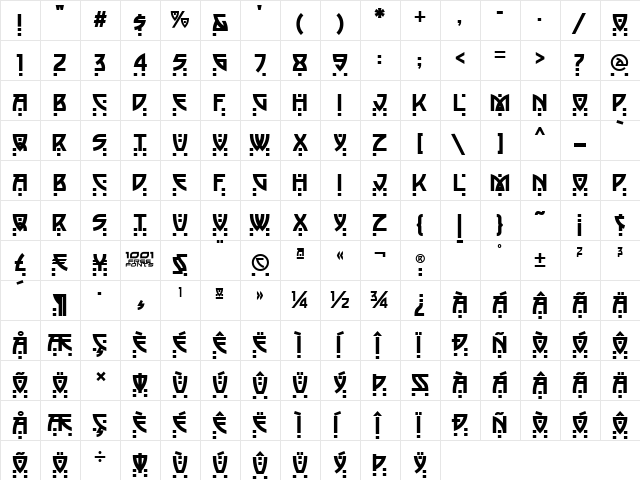
Bala Cynwyd NF Regular
Design Context for Bala Cynwyd NF Typeface
Bala Cynwyd NF is a composed and adaptable typeface that performs quietly and consistently across a wide range of design contexts.